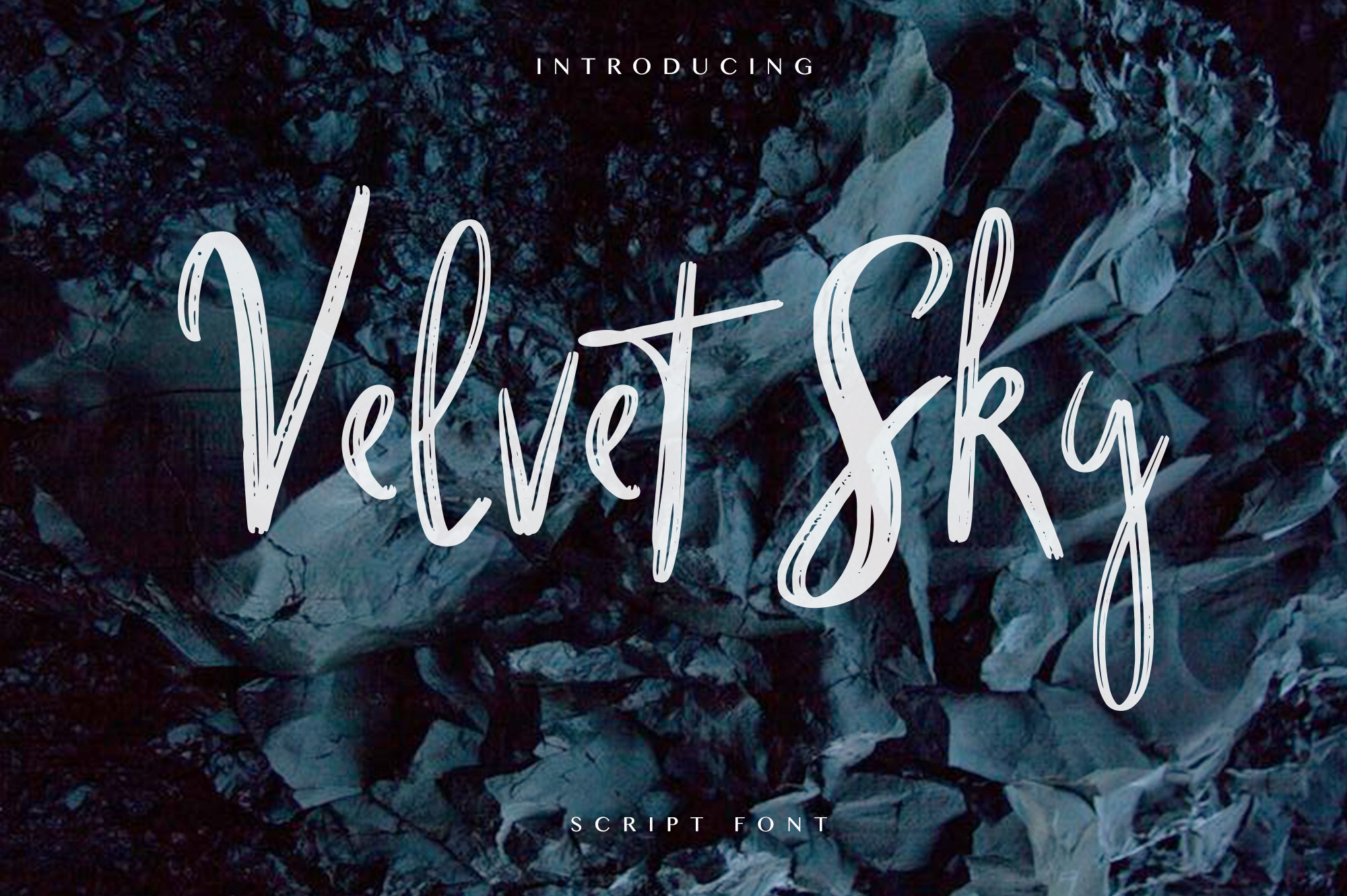
Velvet Sk Brush Font
Velvet Sky Brush Script is a feminine playful font adding every single detail carefully and love to fit perfectly for your texts, logo, quotes, blog header, poster, wedding invitation, stationery, etc.
The font contains standard characters, lowercase, uppercase, numbers and punctuation.